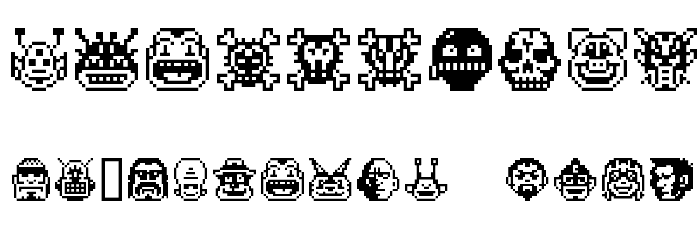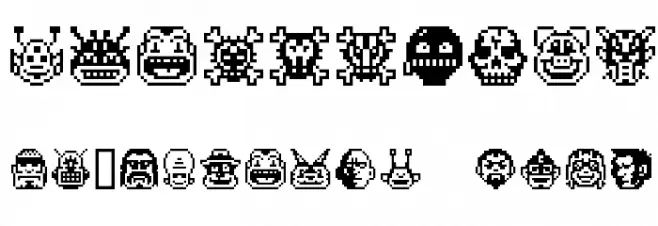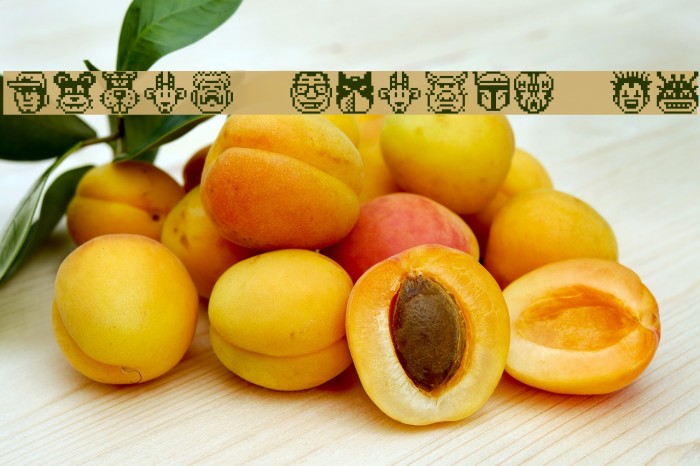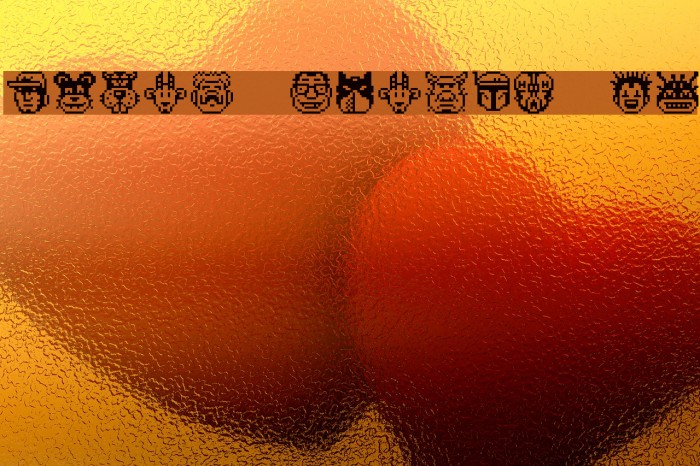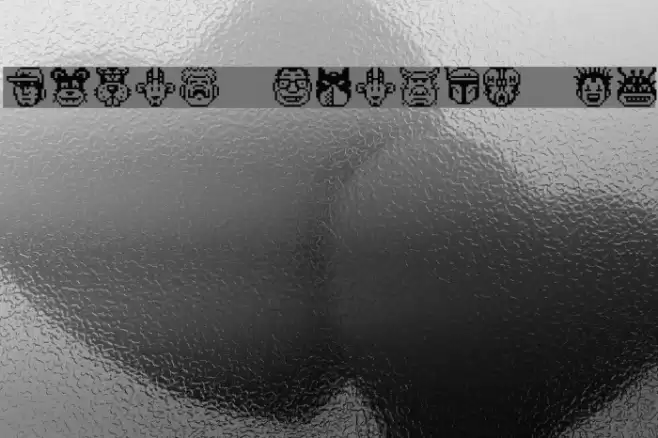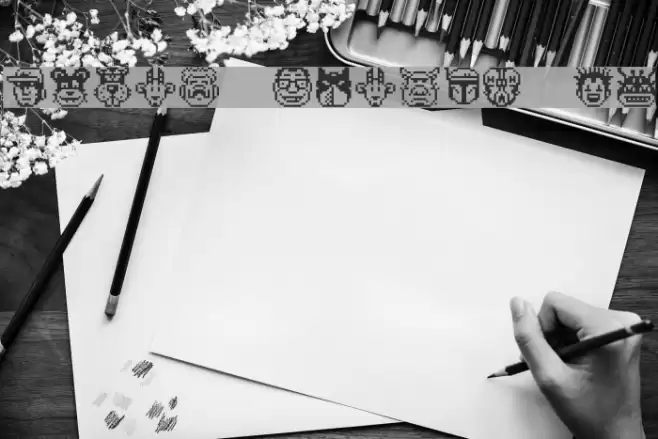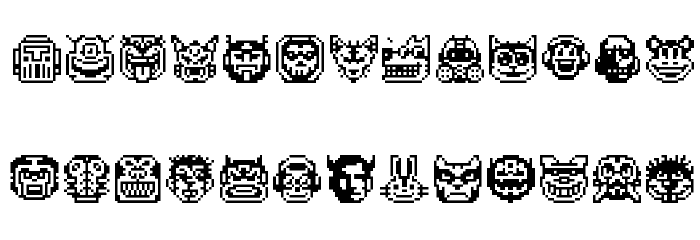
PIXEL FREAKS V1 Font
PIXEL FREAKS V1 Description
A highly decorative bitmap font composed of unique pixel-art faces and characters, each glyph rendered as a distinct cartoonish or monster-like head. The style is playful, retro, and reminiscent of early video game graphics, with each character occupying a square grid and featuring bold, high-contrast black and white pixelation.
Pixel-art font with each character as a unique face or creature from Pixel fonts.
- Overall Style: Decorative, Retro, Playful
- Use Case: Logos, Headlines, Posters, Game UI, Themed events